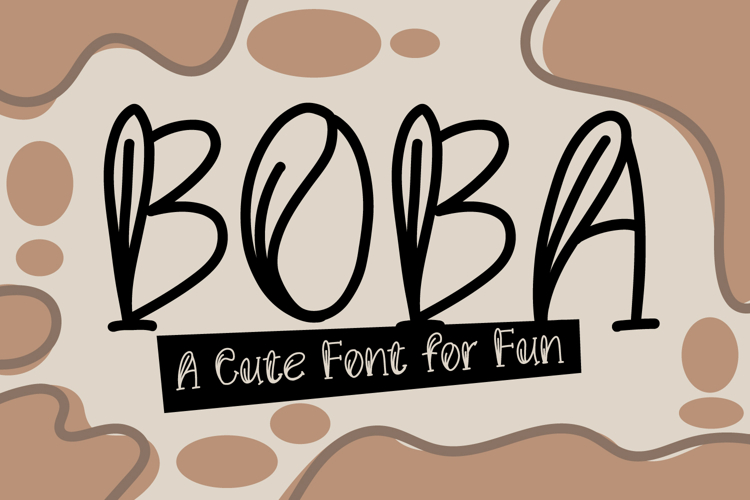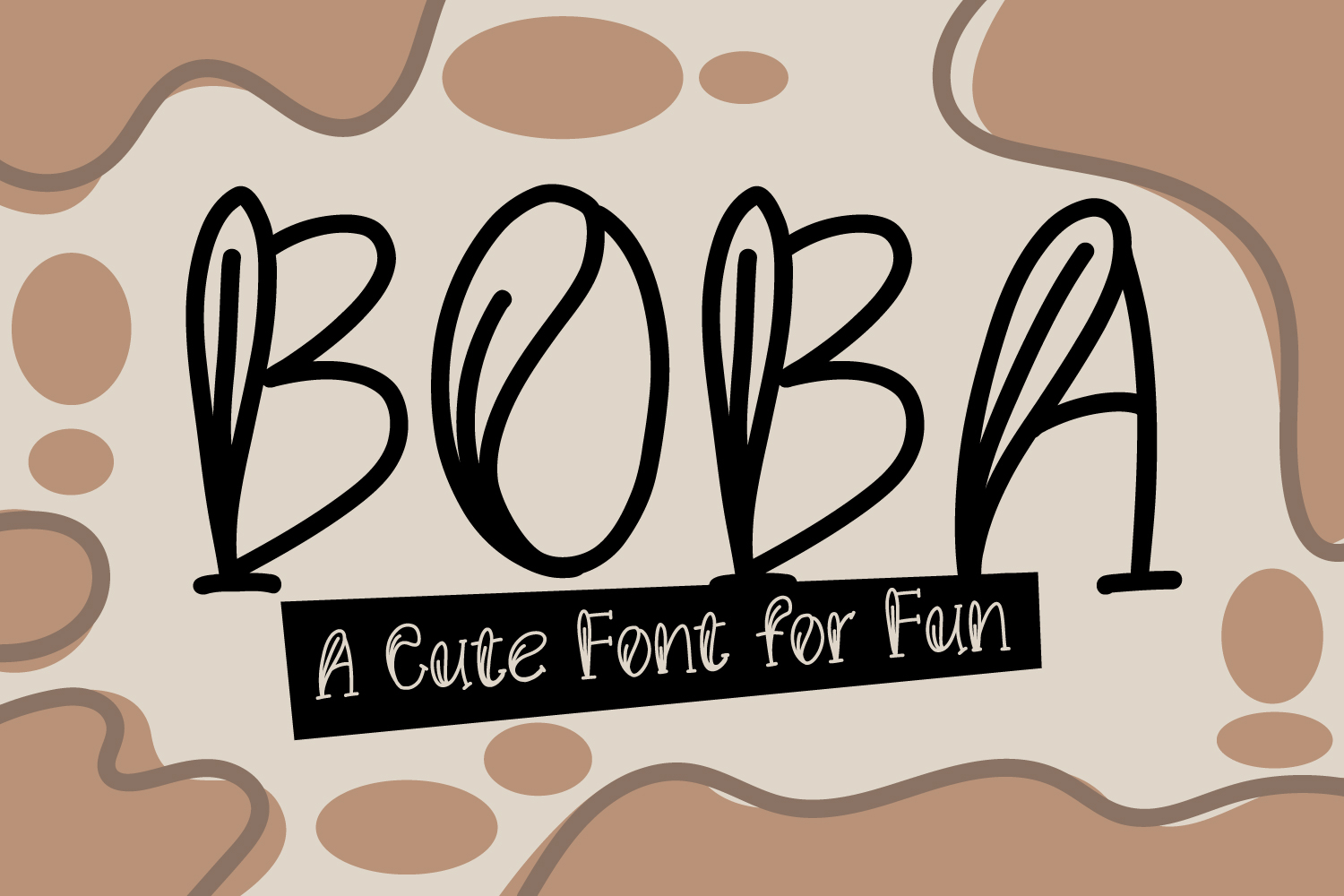
A cute Boba - Hand Drawn Cute Font You can create lots of things using this font including logos, use in Cricut machines etc for your parties like birthdays, fun projects, and making monograms. This font is ready to help you in every situation.